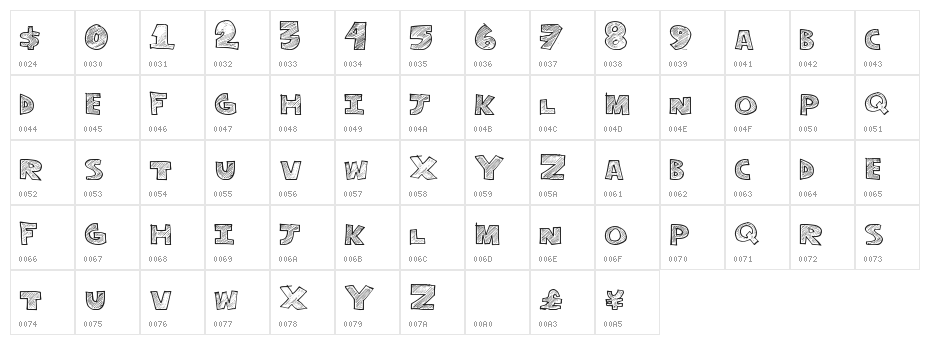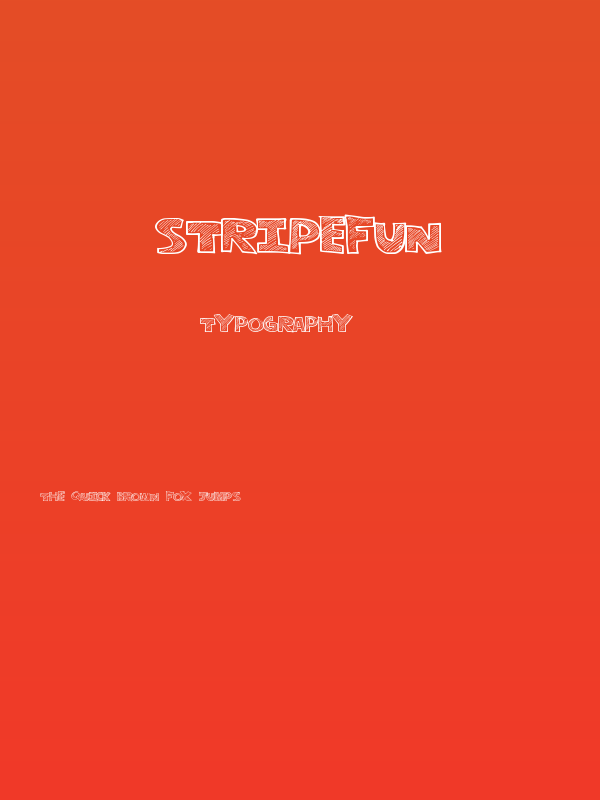
StripeFun Font
This playful and dynamic font features a bold, hand-drawn style with a unique striped pattern filling each character. The letters are uppercase with a slightly irregular outline, giving them a casual and fun appearance. The font includes both uppercase and lowercase letters, numbers, and a variety of special characters. Its sketch-like quality and bold presence make it stand out, perfect for creative projects that require a touch of whimsy and personality. The characters are well-spaced, maintaining readability while showcasing their distinctive design.
| Overall Style | Playful, Hand-drawn, Decorative |
| Use Case | Headlines, Posters, Creative Branding |
| Proposed Projects | Ideal for children's book covers, playful posters, comic strips, and creative branding projects. |